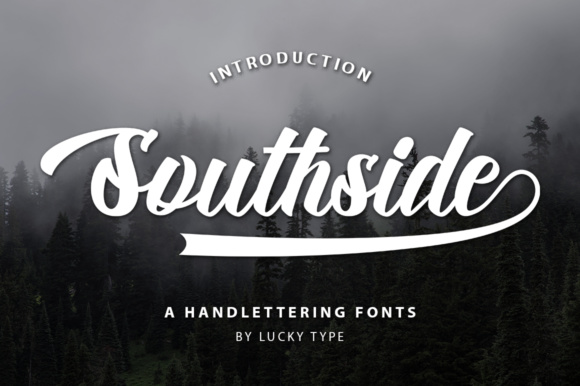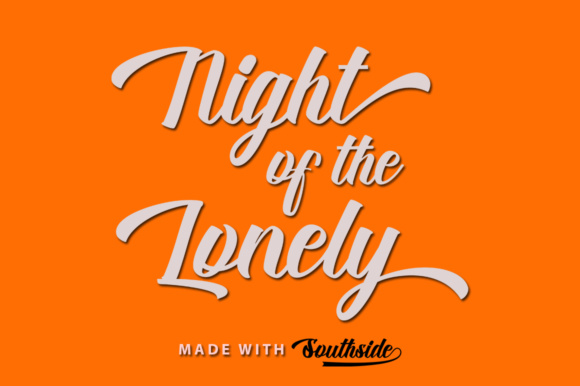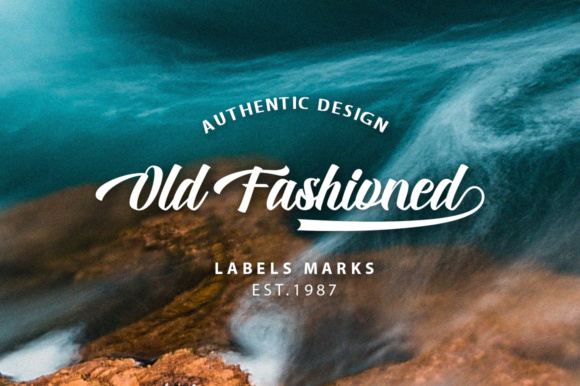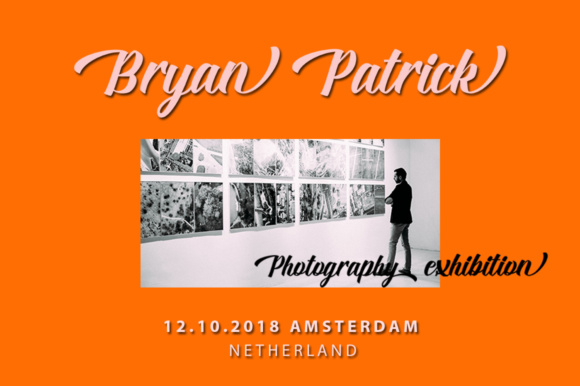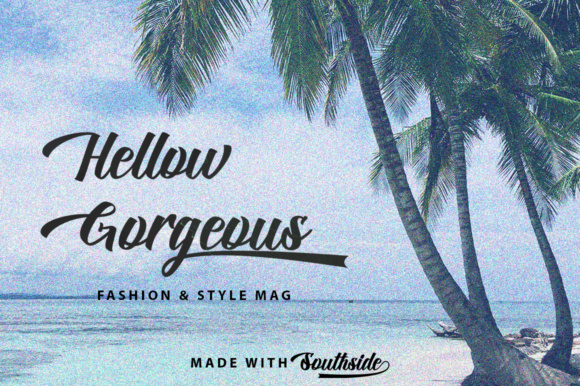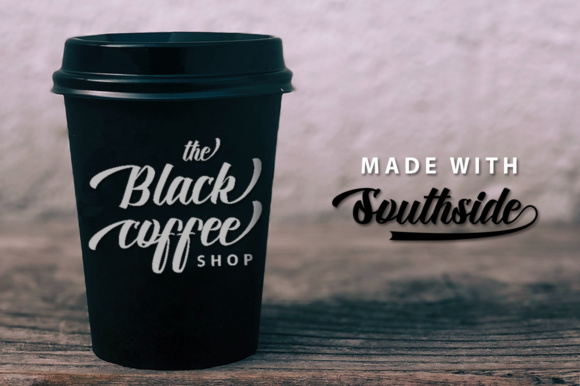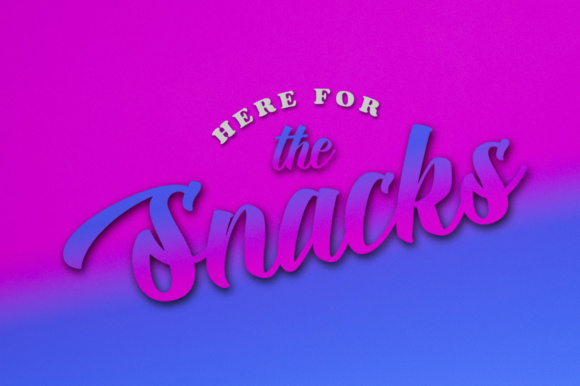
Southside Script Font
About Southside Script Font
The Southside is a vintage, feminine font with an irregular baseline. It can be used for wedding invitations, thank you cards, quotes, greeting cards, logos and much more!